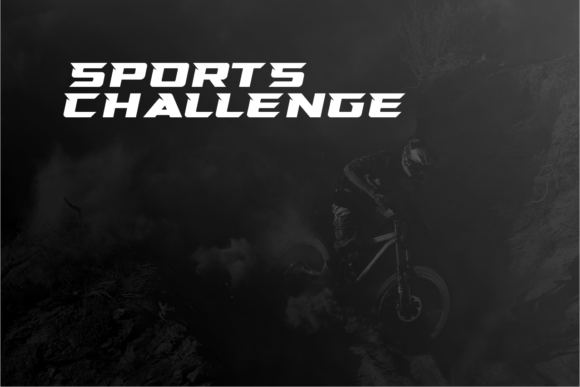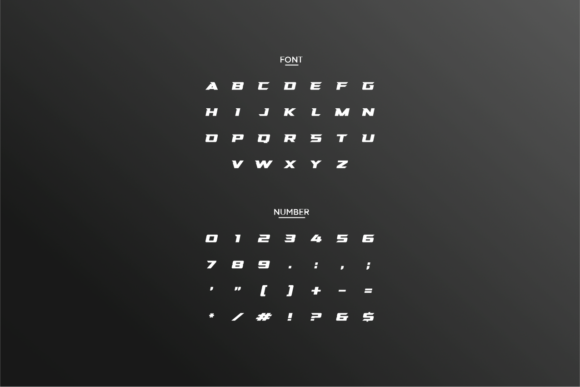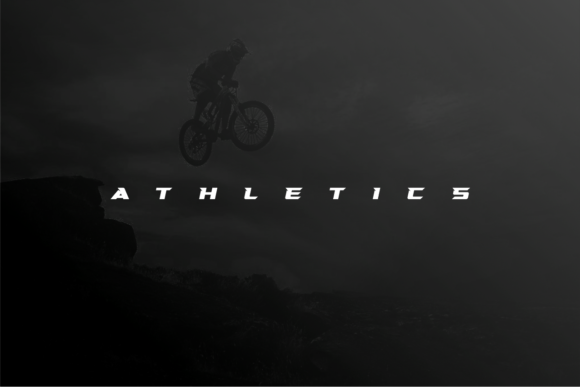
Introducing Benoirs Font: The Ultimate Choice for Sports and Racing Designs
Are you looking for a font that can capture the essence of speed and power? Look no further than Benoirs Font, a modern and dynamic typeface designed specifically for sports and racing designs. With its unique cutouts and slanted style, Benoirs is the perfect choice for creating eye-catching titles, logos, and monograms that demand attention.
What Makes Benoirs Font Stand Out?
Benoirs Font is an awesome sports font that boasts modern cutouts and a dynamic slant, making it ideal for fast-paced sports and racing designs. Its unique design elements create a sense of movement and energy, perfect for capturing the excitement of car racing, running matches, cycling, and other high-speed sports. Whether you’re designing a logo, title, or monogram, Benoirs Font is sure to make a lasting impression.
Ideal for Sports and Racing Designs
Benoirs Font is specifically designed for sports and racing designs, making it the perfect choice for a variety of applications. Some of the ideal uses for Benoirs Font include:
- Fast car racing sports titles
- Running matches and athletic events
- Cycling and endurance sports
- Monograms and sports team logos
Legibility and Size: A Winning Combination
One of the standout features of Benoirs Font is its exceptional legibility and size. The font is designed to be clear and easy to read, even at small sizes, making it perfect for use in a variety of applications. Whether you’re designing a billboard or a social media graphic, Benoirs Font is sure to be legible and impactful.
Creating the Effect of Power and Speed
Benoirs Font is designed to create a sense of power and speed, making it perfect for sports and racing designs. The font’s dynamic slant and modern cutouts work together to create a sense of movement and energy, drawing the viewer’s eye and creating a lasting impression.
A Font Designed for Versatility
Benoirs Font is designed to be versatile and adaptable, making it perfect for use in a variety of design applications. Whether you’re a graphic designer, a crafty DIY enthusiast, or a marketing professional, Benoirs Font is sure to become a go-to choice for your sports and racing designs.
Key Features of Benoirs Font
- Modern cutouts and dynamic slant
- Ideal for sports and racing designs
- Exceptional legibility and size
- Perfect for use in a variety of design applications
- Versatile and adaptable
| Font Name | Benoirs Font |
| Author | Letterna |